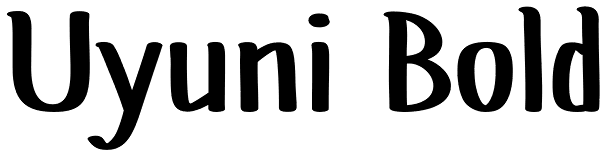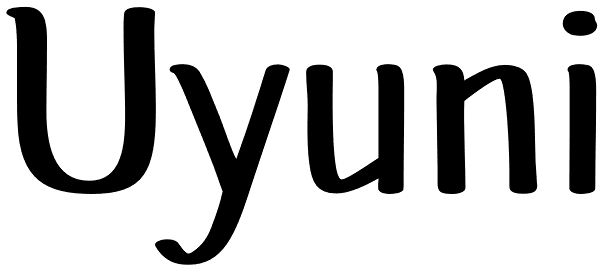
Uyuni
An imperfect handwriting and retro style font. Informal, authentic and very versatile. Lover of adventure travel, alternative sports, and home cooking. It feels more comfortable in large sizes but also can tell little stories.